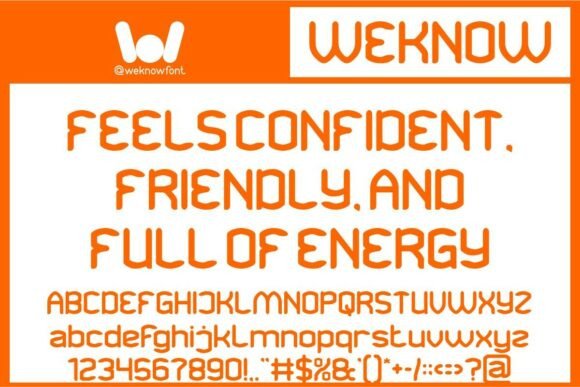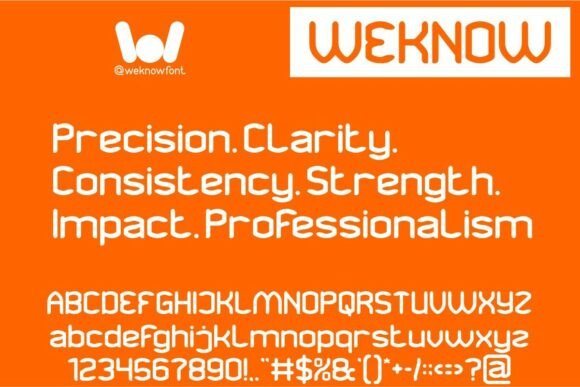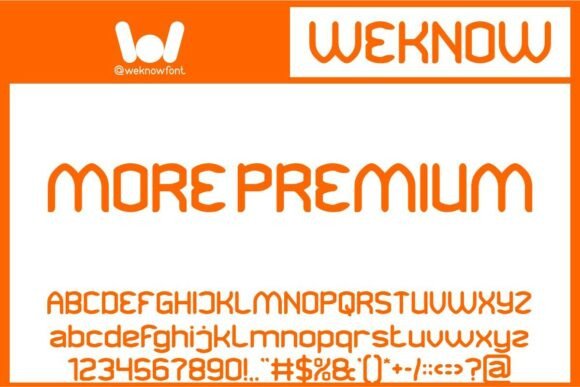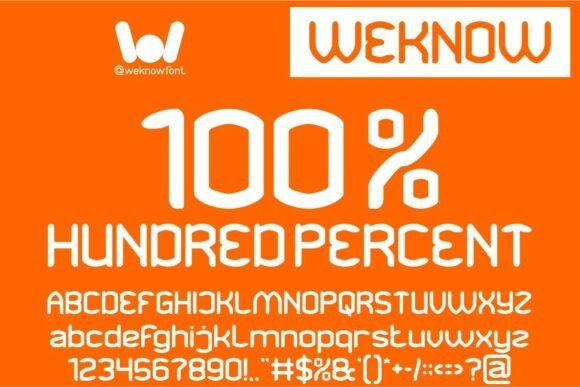
Introduction to Hundred Percent Font
Discover the captivating, unique world of Hundred Percentβ€”a font that effortlessly merges the techno vibes with a sci-fi touch.
Perfectly encapsulating the modern style while maintaining a playful and soft edge, this futuristic display font is that final touch your design projects were longing for It’s a robust choice for a standout logo or logotype, an eye-catching corporate or brand identity, and so much more.
Key Features of Hundred Percent Font
Why Choose Hundred Percent Font?
Hundred Percent Font offers exceptional quality and versatility, making it a valuable addition to your design toolkit. Whether you’re creating for personal projects or commercial use, Hundred Percent Font delivers professional results.